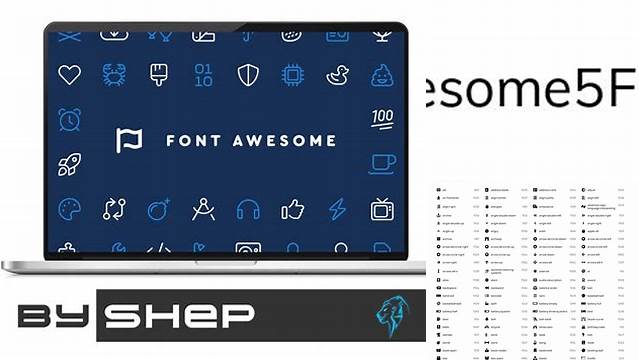
What is Font Awesome 5 Pro?
Okay, guys, let's dive into what Font Awesome 5 Pro actually is. Think of it as your ultimate icon library on steroids! While the regular Font Awesome is cool, the Pro version unlocks a treasure trove of extra icons, styles, and features that can seriously level up your web design game. We're talking thousands more icons, different weights (think thin, light, regular, bold), and even the option to upload your own custom icons. Basically, if you're serious about making your website look slick and professional, Font Awesome 5 Pro is a must-have. It's not just about having more icons; it's about having the right icons to perfectly represent your brand and message. Plus, the advanced features like official icon packages and more styles give you unparalleled flexibility and control over your visual design. So, yeah, it's a pretty big deal!
Font Awesome 5 Pro Features
Let's break down the key features that make Font Awesome 5 Pro a standout choice. First up, the sheer number of icons. We're talking thousands upon thousands, covering virtually every conceivable category. Need an icon for a specific type of file? Got it. How about a social media platform you've never even heard of? Probably got that too. Then there are the styles: solid, regular, light, thin, duotone – each offering a different visual flavor to suit your design. The Pro version also lets you use Font Awesome for commercial projects, something the free version restricts. Another great feature is the ability to use Font Awesome with different front-end frameworks like React, Vue.js, and Angular. This makes integration a breeze, no matter what tech stack you're working with. And finally, don't forget the official icon packages, which provide curated sets of icons designed to work together harmoniously. All these features combined make Font Awesome 5 Pro a powerful tool for any web developer or designer.
Benefits of Using Font Awesome 5 Pro
So, why should you even bother with Font Awesome 5 Pro? What are the real-world benefits? Well, for starters, it can save you a ton of time. Instead of hunting around for individual icons or creating your own, you've got a massive library at your fingertips. This means faster development times and more efficient workflows. The consistent styling across all the icons also ensures a professional and polished look for your website. Font Awesome 5 Pro also improves site performance by using vector graphics, which scale perfectly without losing quality and reduce file sizes compared to raster images. Another big benefit is the improved user experience. With a wider range of icons, you can create more intuitive and user-friendly interfaces, guiding visitors through your site with ease. In short, Font Awesome 5 Pro isn't just about aesthetics; it's about improving productivity, performance, and the overall user experience. It’s a win-win-win!
Font Awesome Free vs Pro: Key Differences
It's crucial to understand the differences between Font Awesome Free and Pro before deciding which one is right for you. The free version offers a decent selection of icons, but it's limited compared to the Pro version. You'll find fewer styles available (mostly just solid), and the number of icons is significantly smaller. With Font Awesome 5 Pro, you unlock thousands of additional icons, more styles (light, thin, duotone), and advanced features like the ability to upload your own custom icons. Commercial use is also restricted in the free version, meaning you can't use it for certain types of projects without a Pro license. Performance-wise, both versions are optimized, but Pro users benefit from official packages and better support. If you're just starting out or have very basic icon needs, the free version might suffice. But if you're serious about web design and need a comprehensive icon library with advanced features, Font Awesome 5 Pro is the clear winner.
Styling Font Awesome 5 Pro Icons with CSS
Styling Font Awesome 5 Pro icons with CSS is super simple and gives you a ton of control over their appearance. You can change the size, color, rotation, and even add animations using CSS. For example, to change the color of an icon, you can simply use the color
property in your CSS rule. To rotate an icon, you can use the transform: rotate()
Font Awesome 5 Pro: Icon Font Subsetting